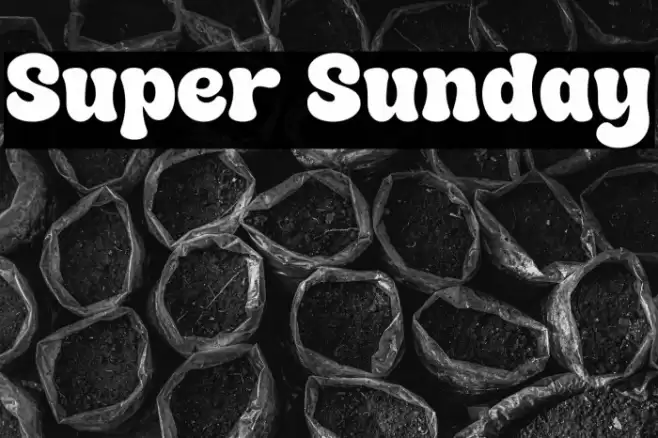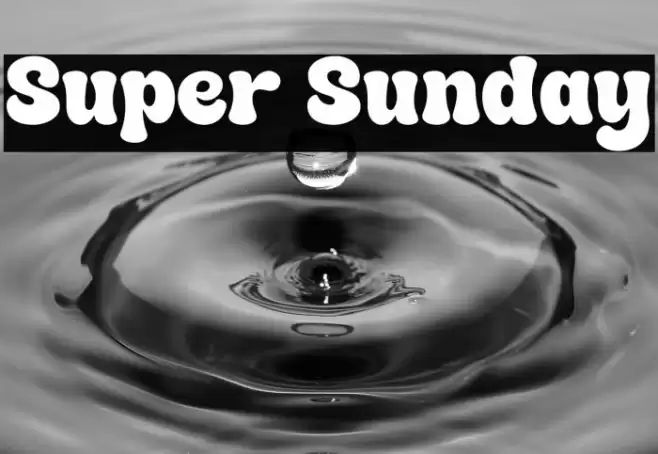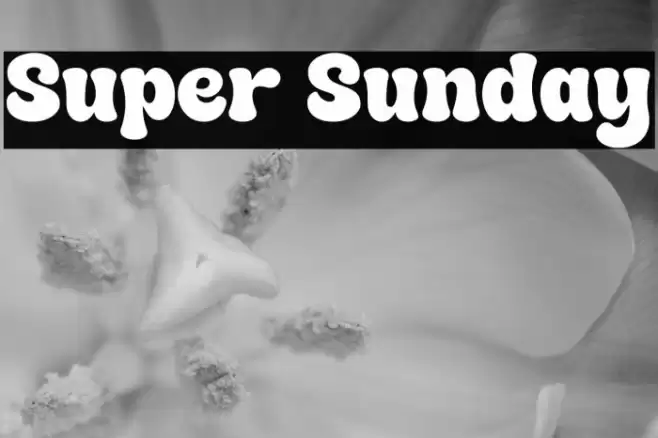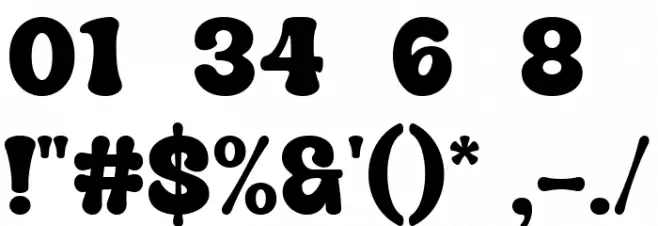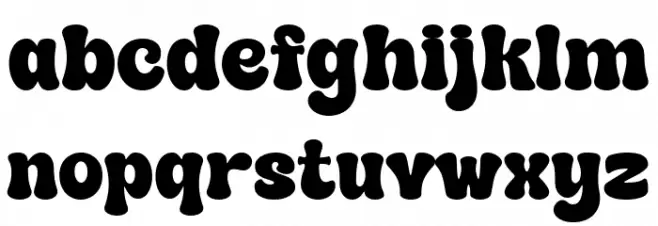
Super Sunday Font
Super Sunday Description
This font features a bold and playful design with rounded, bubbly characters that convey a sense of fun and whimsy. The letters are thick and have a consistent weight throughout, creating a strong visual impact. The curves are smooth and exaggerated, giving the font a cartoonish and friendly appearance. The uppercase and lowercase letters maintain a uniform style, while the numbers and special characters integrate seamlessly with the overall design. This font is ideal for projects that require a lively and engaging aesthetic.
- Proposed Projects: Perfect for children's books, playful branding, party invitations, and eye-catching posters.
- Overall Style: Playful, Cartoonish